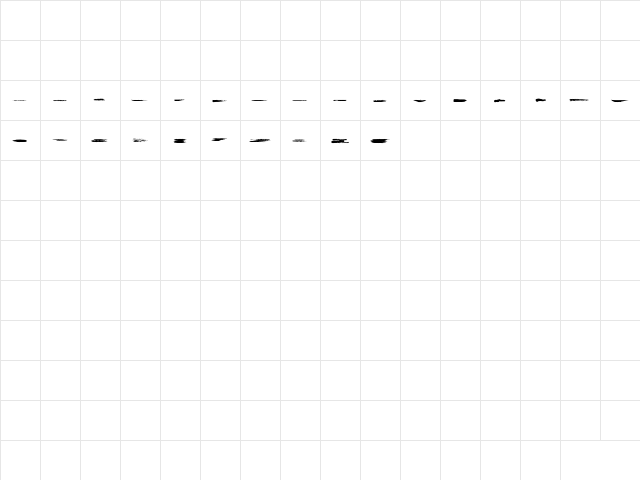
Grunge Strokes 01 Regular
Design Context for Grunge Strokes 01 Typeface
Grunge Strokes 01 embraces imperfection — its rough, textured character adds raw authenticity to designs that want to feel lived-in and unconventional.
Suited to punk-influenced zines, underground music branding, streetwear, and raw, anti-corporate design.
Pro Tip: Pair Grunge Strokes 01 with intentionally raw or lo-fi design elements. Fighting against it with overly polished surroundings will undermine its personality.